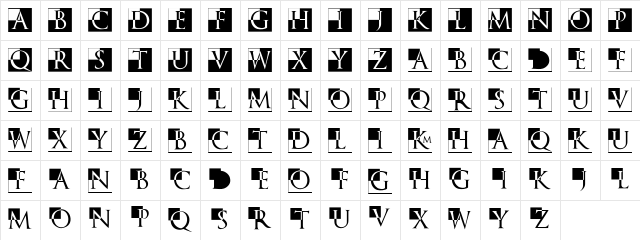
TrajanusBricksXtra Regular
Design Context for TrajanusBricksXtra Typeface
TrajanusBricksXtra is a composed and adaptable typeface that performs quietly and consistently across a wide range of design contexts.